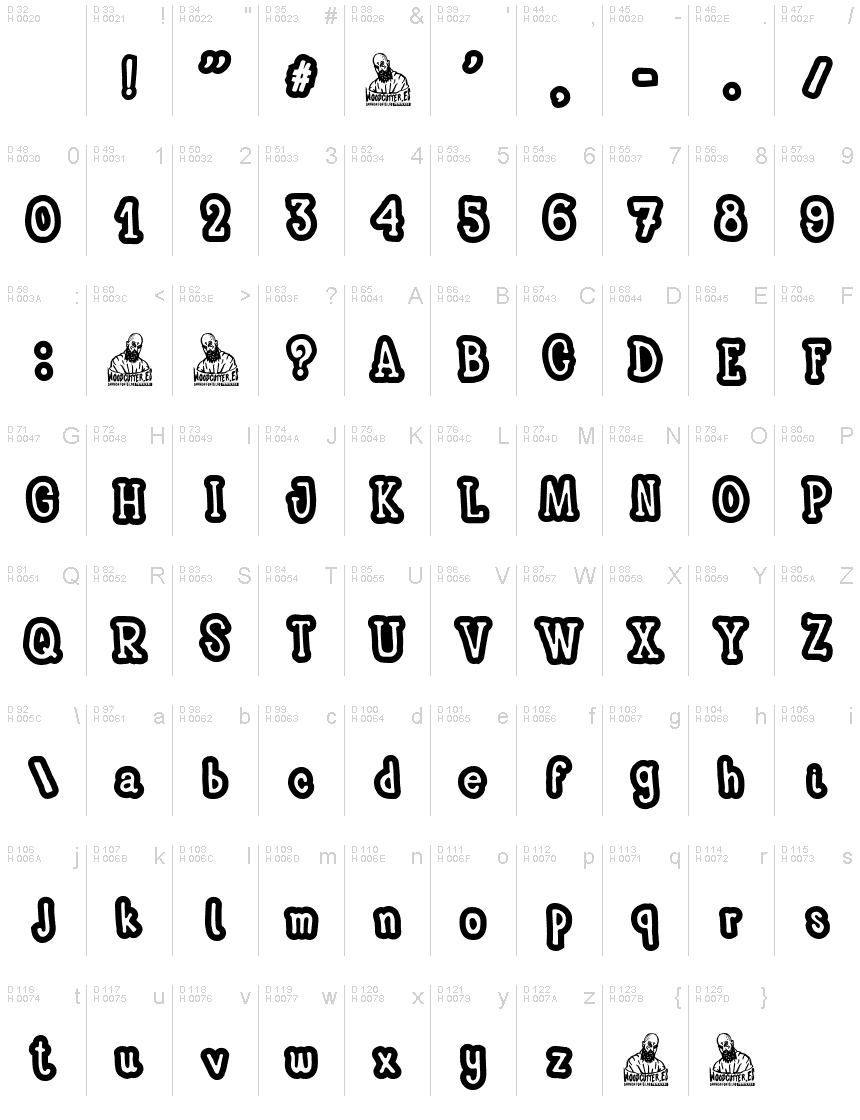
National Discipline
National Discipline, designed by Woodcutter, is a bold and dynamic display font that adds a playful touch to any project.
With its cartoon-inspired style and outlined design, this font is perfect for children's book covers, animated movie posters, and vibrant video game titles. Its bold weight ensures legibility even at smaller sizes, making it ideal for eye-catching logos and attention-grabbing headlines.
National Discipline brings a sense of fun and energy to any creative endeavor, making it the go-to choice for those seeking a whimsical yet impactful typographic statement.